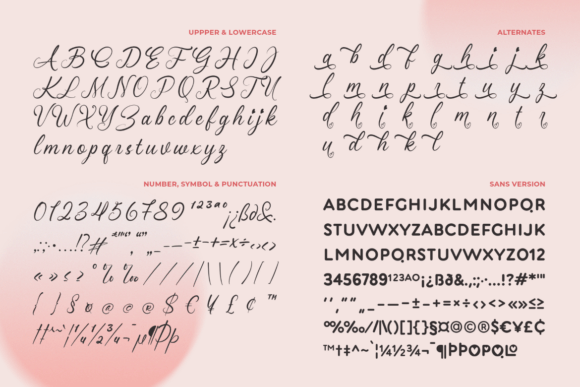
Blooming Romance Duo Font: Elevate Your Designs with Love and Sophistication
Are you looking for a font duo that embodies the essence of love and sophistication? Look no further than Blooming Romance, a captivating Valentine’s-centered font duo that is sure to make your designs stand out. This dynamic duo combines a bold, whimsical sans-serif typeface with a romantically delicate script font, perfect for infusing your creative designs with a sense of warmth and tenderness.
Introducing the Bold and Whimsical Sans-Serif Typeface
The first font in the Blooming Romance duo is a bold, whimsical sans-serif typeface that is adorned with enchanting heart details. This font is guaranteed to make your headlines stand out, adding a touch of playfulness and romance to your designs. The heart details are intricately designed, adding a level of sophistication and elegance to the overall look and feel of the font.
With its bold and whimsical design, this sans-serif typeface is perfect for creating eye-catching headlines and titles that are sure to grab attention. Whether you’re designing a Valentine’s Day card, a wedding invitation, or a love-focused brand campaign, this font is sure to make a lasting impression.
The Romantically Delicate Script Font
The second font in the Blooming Romance duo is a romantically delicate script font with fluid strokes, elegantly embellished with hearts. This font adds a touch of grace and sophistication to your text, making it perfect for creating beautiful and elegant designs. The script font is designed to be highly legible, making it ideal for use in a variety of design applications, from wedding stationery to love-focused brand imaging.
The fluid strokes and elegant embellishments of this script font give it a romantic and whimsical feel, perfect for capturing the essence of love and sophistication. Whether you’re designing a wedding invitation, a love letter, or a Valentine’s Day card, this font is sure to add a touch of elegance and refinement to your design.
The Harmonious Fusion of Playfulness and Elegance
The Blooming Romance font duo is characterized by a harmonious fusion of playfulness and elegance, making it an excellent choice for a wide range of design applications. The bold and whimsical sans-serif typeface, combined with the romantically delicate script font, creates a unique and captivating visual identity that is sure to make your designs stand out.
The playfulness of the sans-serif typeface is balanced perfectly by the elegance of the script font, creating a beautiful and sophisticated design aesthetic that is perfect for Valentine’s Day ventures, wedding stationery, love-focused brand imaging, and beyond. Whether you’re designing for a romantic occasion or simply want to add a touch of love and sophistication to your designs, Blooming Romance is the perfect font duo for you.
Perfect for Valentine’s Day Ventures
Valentine’s Day is just around the corner, and what better way to celebrate than with a font duo that embodies the essence of love and romance? Blooming Romance is the perfect choice for any Valentine’s Day venture, from romantic getaways to Valentine’s Day cards and gifts.
The bold and whimsical sans-serif typeface, combined with the romantically delicate script font, creates a captivating visual identity that is sure to make your Valentine’s Day designs stand out. Whether you’re designing for a client or simply want to create something special for your loved one, Blooming Romance is the perfect font duo for the job.
Ideal for Wedding Stationery
Wedding stationery is a crucial part of any wedding planning process, and the right font can make all the difference. Blooming Romance is the perfect choice for wedding stationery, from invitations to thank-you cards and wedding programs.
The romantically delicate script font is perfect for creating elegant and sophisticated wedding stationery, while the bold and whimsical sans-serif typeface adds a touch of playfulness and romance. Whether you’re designing for a traditional or modern wedding, Blooming Romance is the perfect font duo for the job.
Love-Focused Brand Imaging
If you’re a brand looking to create a love-focused campaign, Blooming Romance is the perfect font duo for you. The bold and whimsical sans-serif typeface, combined with the romantically delicate script font, creates a captivating visual identity that is sure to make your brand stand out.
Whether you’re designing for a Valentine’s Day campaign or simply want to create a love-focused brand identity, Blooming Romance is the perfect choice. The font duo is highly versatile, making it suitable for use in a wide range of design applications, from social media graphics to print ads and beyond.
In conclusion, Blooming Romance is a captivating Valentine’s-centered font duo that is sure to elevate your designs with love and sophistication. The bold and whimsical sans-serif typeface, combined with the romantically delicate script font, creates a harmonious fusion of playfulness and elegance that is perfect for a wide range of design applications.
Whether you’re designing for Valentine’s Day, wedding stationery, love-focused brand imaging, or simply want to add a touch of love and sophistication to your designs, Blooming Romance is the perfect font duo for you. So why wait? Download Blooming Romance today and infuse your creative designs with an essence of love and sophistication!